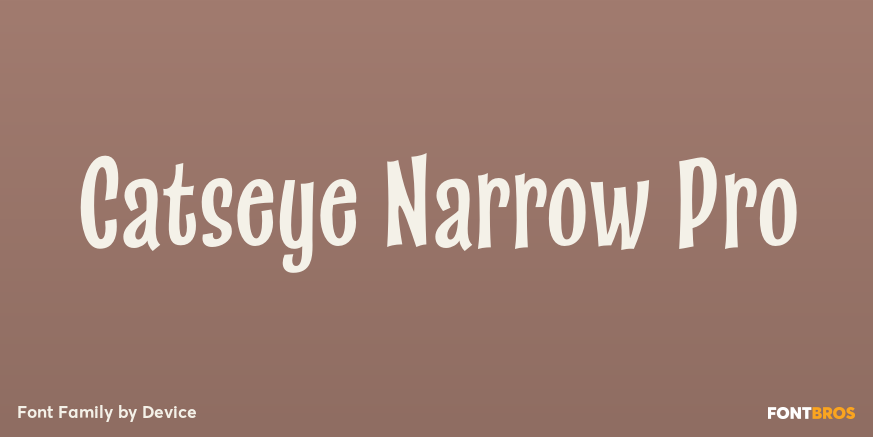
Catseye Narrow Pro
About Catseye Narrow Pro
A casual sans that harks back to the very English style of book jacket and poster art of the late 50\’s and early 60\’s. The turned-in terminals are reminicent of Stephenson Blake\’s Grotesque 9, and the italic provides unique cursive versions of the lowercase…